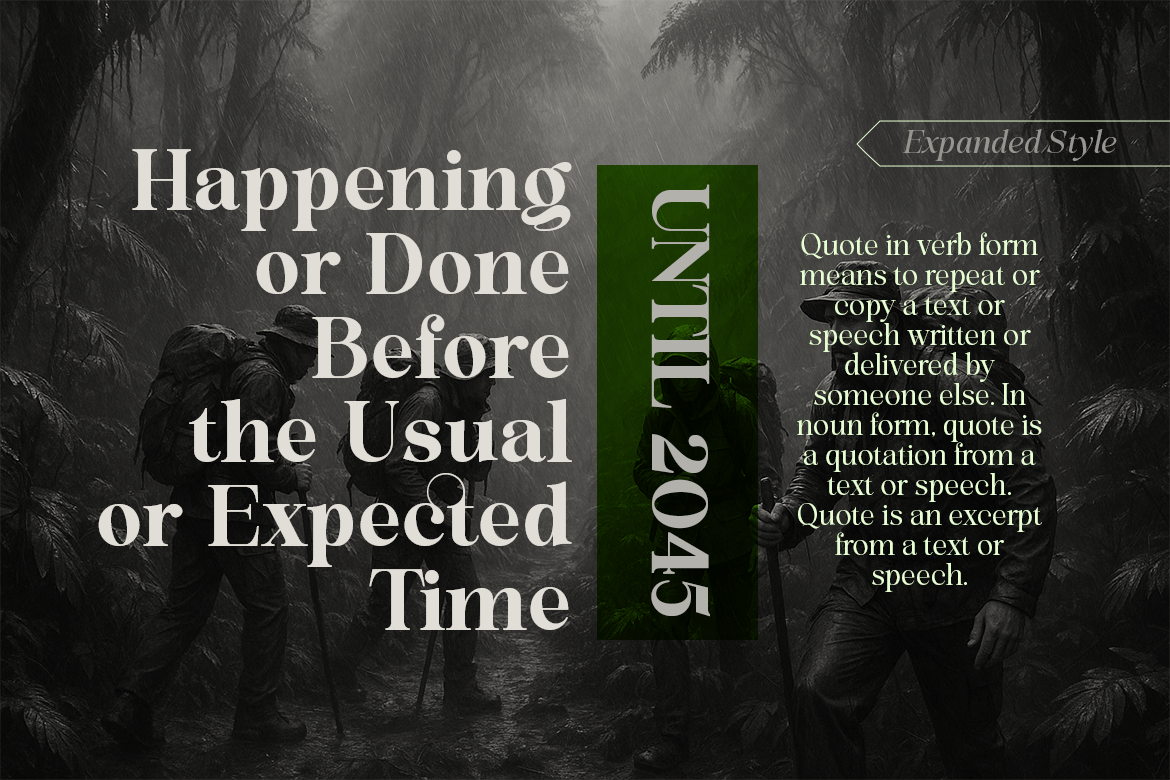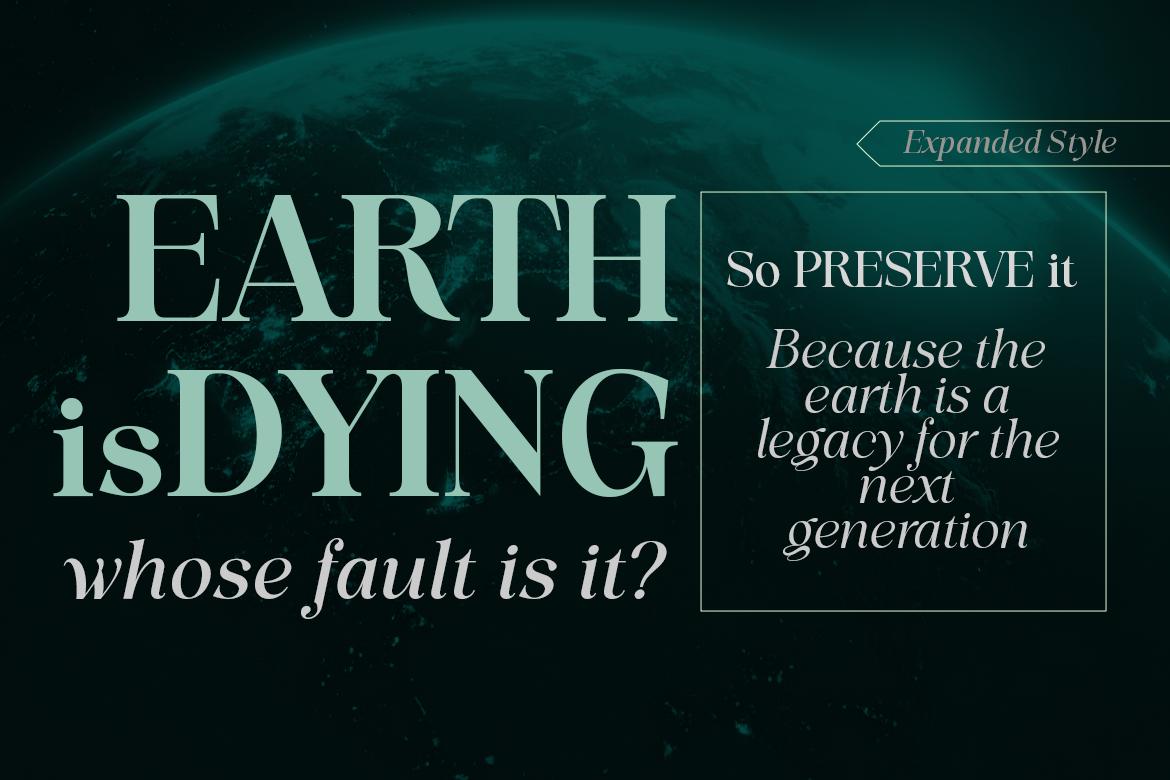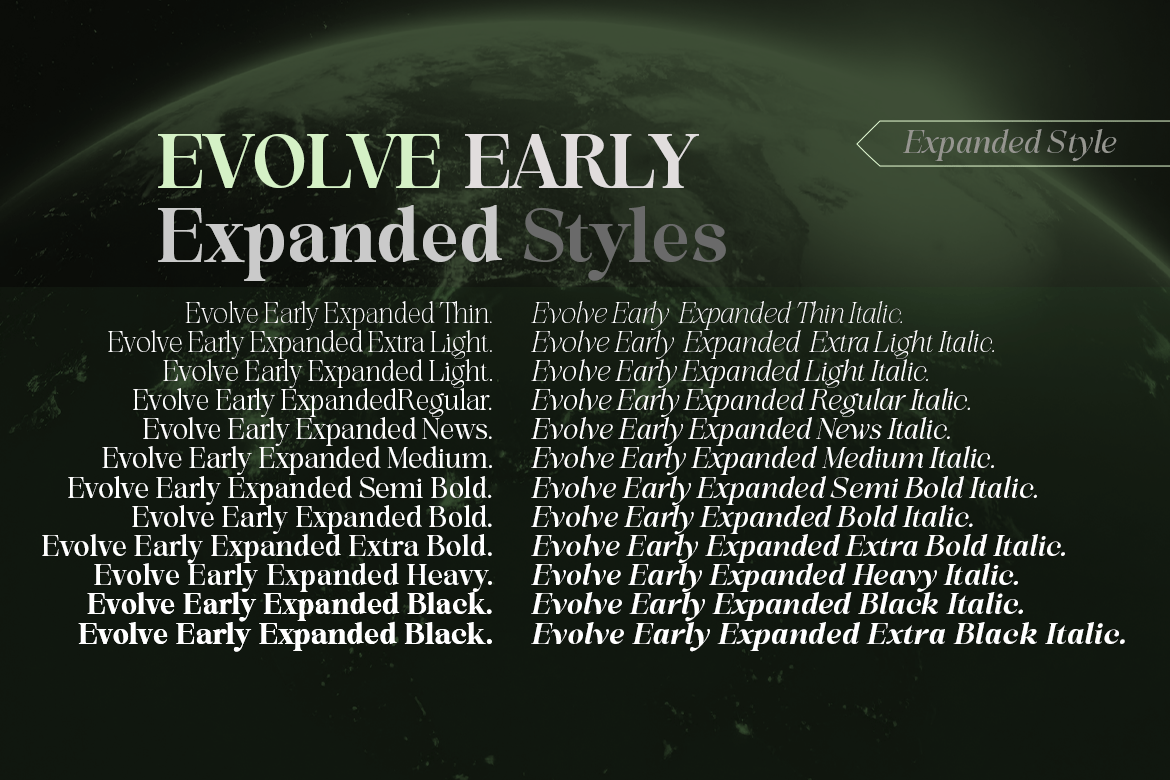
Evolve Early Expanded
Evolve Early Expanded has the perfect balance between the familiar and the unexpected. With Evolve Early Expanded , designers can use this font for a variety of needs in creating elegant design works.
Please note, Evolve Early Expanded is a bold and expressive serif family font that adorns the pages of top fashion magazines and publications in print media and web pages. Evolve Early Expanded flows with a vintage charm that supports contemporary designs.
Evolve Early Expanded is a variation characterized by soft flexibility in the glyph character section, the serif family font Expanded (12 upright fonts and 12 italics), so a total of 24 font variations
Evolve Early Expanded looks amazing in logos, magazines, and films. This font will be perfect for branding, headlines, captions, paragraphs, and posters. Various thicknesses allow you to experiment with various applications. This font is made to make an impression without sacrificing its beauty and readability.